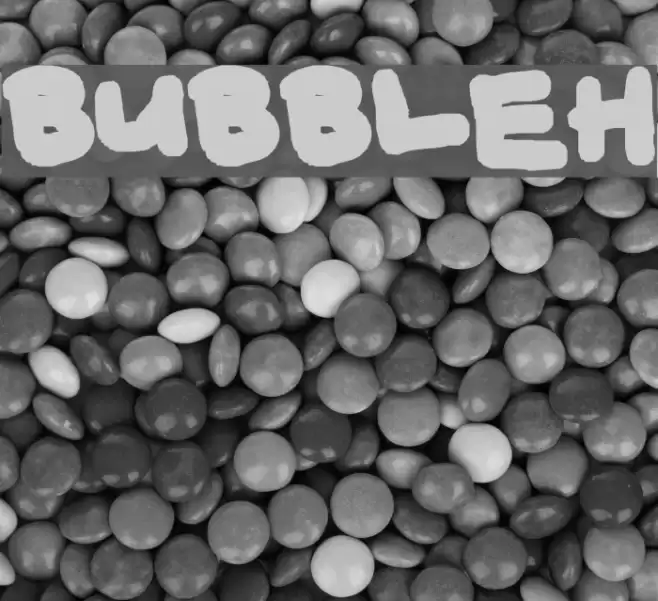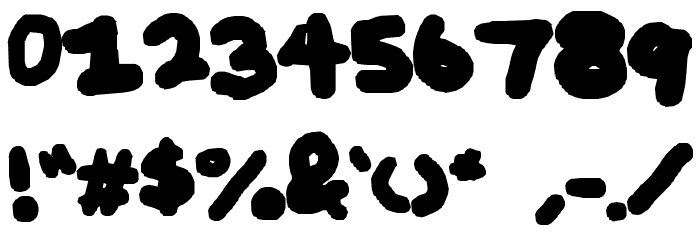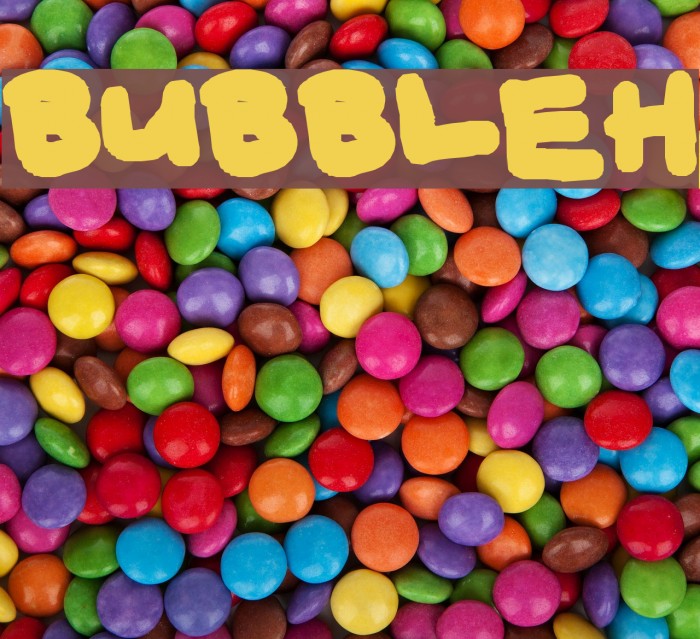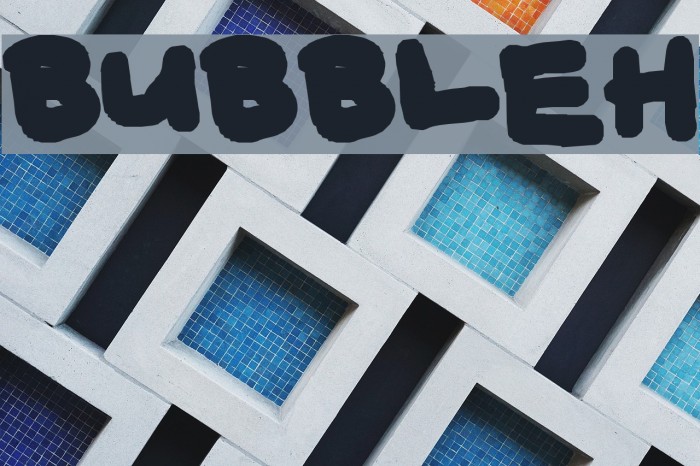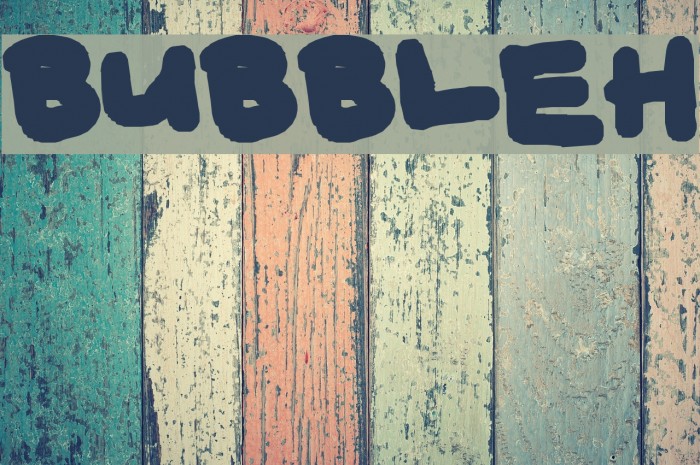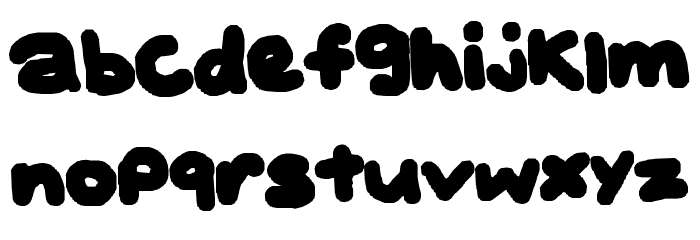
BUBBLEH Font
BUBBLEH Description
This playful and bold font features rounded, bubble-like characters that exude a sense of fun and creativity. The thick strokes and smooth curves give it a friendly and approachable appearance, making it ideal for designs that aim to capture attention and convey a lighthearted tone. The uppercase and lowercase letters maintain a consistent style, with a uniform thickness that adds to its cohesive look. Numbers and special characters are equally bold and rounded, ensuring they stand out in any design. This font is perfect for projects that require a touch of whimsy and charm.
A bold, rounded font with a playful and friendly style from Uncategorized fonts.
- Proposed Projects: Ideal for children's books, playful branding, party invitations, and casual social media graphics.
- Overall Style: Playful